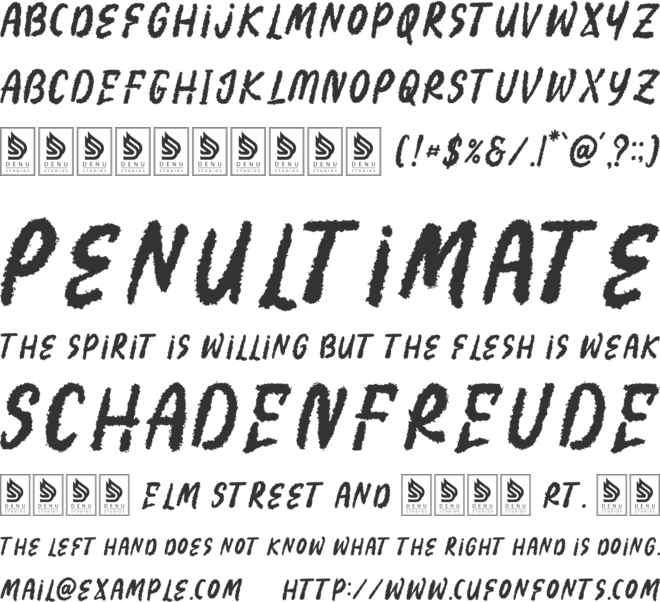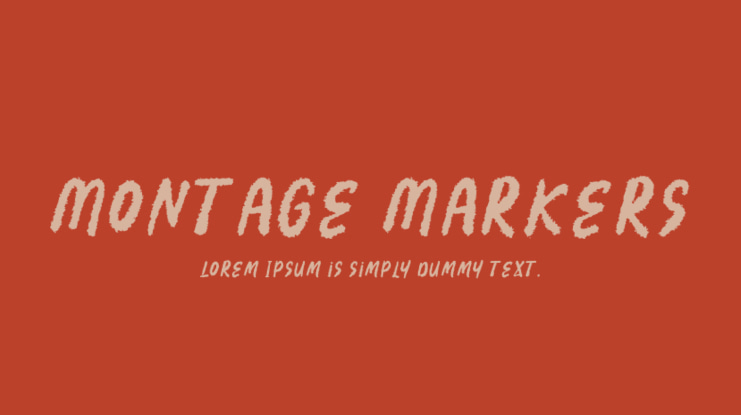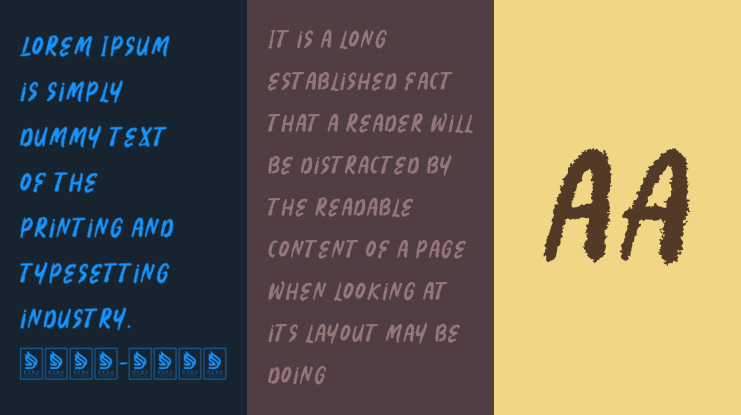
Montage Markers Font
Montage Markers | Brush Bold Quirky is suitable for any projects such as: logos, branding projects, homeware designs, product packaging, mugs, quotes, posters, shopping bags, t-shirts, book covers, name cards, invitation cards, greeting cards, labels, photography, watermarks, special events, and all your other lovely projects that need a Brush Bold Quirky taste.